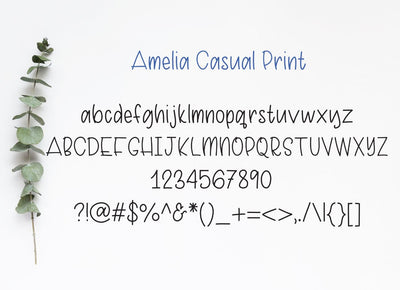
Amelia Casual Print Hand Lettered Font
Amelia Casual Print is a sweet and simple minimalist casual handwritten font that’s great for content, signage, sketching and just about anything you can think of. While it definitely makes a great cut file, it's also great for printing your own stationery and scrapbook pages. It's just about perfect for anything!
Amelia is a mixed-case font (uppercase and lowercase are all the same height) so you can mix and match letters to make a fun playful word.
- Uppercase A-Z
- Lowercase a-z
- Numbers 0-9
- Standard punctuation